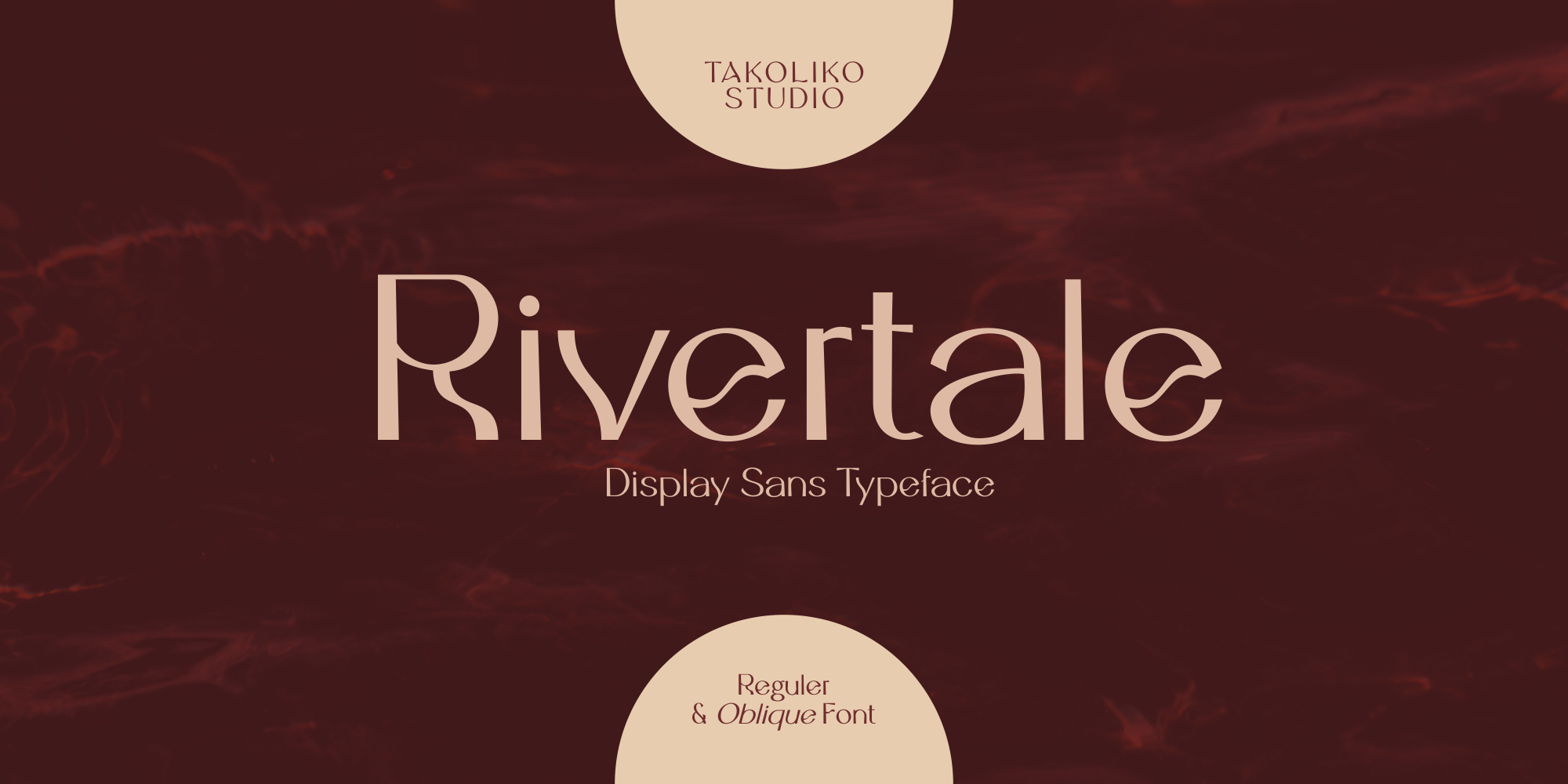
Rivertale Font is perfect for storytelling book covers, children's literature, fairy tale illustrations, narrative podcast branding, folklore museums, riverside lodge signage, nature storytelling events, adventure camp materials, bedtime story apps, mythical creature designs, and any project that requires enchanting narrative character with whimsical storytelling magic.
What makes Rivertale Font exciting is its captivating ability to weave stories through flowing letterforms that capture the meandering beauty of river narratives and the timeless magic of oral traditions. This enchanting typeface features organic curves with storybook characteristics that evoke the gentle flow of water and the warmth of campfire tales. The font's narrative character adds instant storytelling charm and whimsical appeal to any design, making it perfect for brands and projects celebrating the art of storytelling and imaginative adventures.
Rivertale Font comes in multiple font families including Regular, Bold, Light, Flowing, Condensed, and Storybook variations, offering designers comprehensive options to create narrative compositions and achieve the perfect storytelling aesthetic for tale-focused design projects.
Whether you're developing children's entertainment branding, creating folklore educational materials, or designing narrative campaign materials, Rivertale Font Free Download provides the ideal solution for projects emphasizing storytelling magic and narrative enchantment. This charming typeface excels in display applications where whimsical presence is essential, ensuring your designs communicate story-driven wonder and imaginative appeal. The flowing character and narrative styling of Rivertale Font make it an indispensable tool for designers who prioritize storytelling artistry, narrative magic, and enchanting tale-telling traditions in their typographic selections.